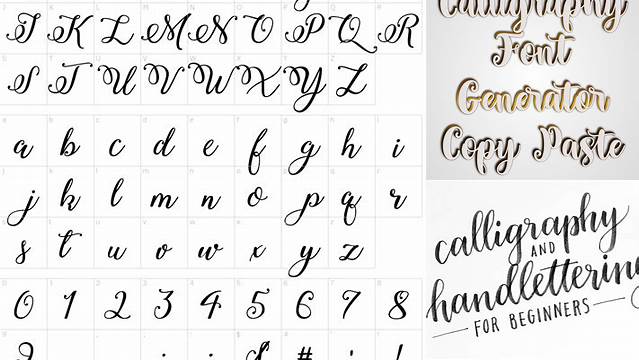
Hey guys! Are you ready to dive into the beautiful world of calligraphy? Whether you're a seasoned artist or just starting out, finding the perfect font can be a game-changer. That's where a calligraphy font generator comes in! And guess what? We're talking about free downloads and easy copy-paste options. Sounds awesome, right? This article is your go-to guide for all things calligraphy fonts. We'll explore the best generators, how to use them, and even some tips to make your designs stand out. So, grab your digital pen (or your regular one!), and let's get started!
H2: Understanding the Magic of Calligraphy Fonts
Alright, before we jump into the generators, let's talk about why calligraphy fonts are so darn special. Think about it – they add a touch of elegance, personality, and artistry that plain text just can't match. They're perfect for everything from invitations and greeting cards to website headers and social media posts. The beauty of a well-chosen calligraphy font is that it instantly elevates your design. It's like adding a splash of color to a black and white picture! Calligraphy fonts often mimic the strokes of a real pen, giving your text a handmade, authentic feel. This can create a sense of warmth and personal connection, which is particularly effective in marketing materials or personal projects. Plus, they offer a wide range of styles, from the classic and formal to the modern and whimsical. Choosing the right font is crucial. A font that aligns with your message can communicate subtle cues about your brand or your personal style. This is where the calligraphy font generator copy paste free download becomes invaluable, helping you explore different options and find the perfect fit for your project without spending a dime. The versatility of these fonts is truly amazing. You can find styles that work for weddings, birthdays, and even business presentations. They are like the secret weapon in a designer's arsenal, instantly making any design project more visually appealing. The artistic nature of calligraphy fonts can grab the attention of the reader and make them curious about the message. The variations are truly endless. You'll find fonts that are delicate and flowing, bold and dramatic, and everything in between. The availability of free downloads also enables you to try a variety of styles before committing to a particular one. You can play with different fonts, experiment with various sizes and styles and see what looks and feels best. The ability to copy and paste these fonts makes them even easier to integrate into your design workflow. Overall, understanding calligraphy fonts and leveraging tools like a calligraphy font generator copy paste free download is a smart way to add beauty and professionalism to your designs. They're a fun way to explore your creativity.
H3: The Importance of Calligraphy in Design
Calligraphy isn't just about pretty letters; it's a powerful design element that can significantly impact how your message is received. Think of it as the visual equivalent of a warm handshake or a friendly smile. When used correctly, calligraphy fonts create an emotional connection with your audience. They convey a sense of care, attention to detail, and artistry that plain text can't. In a world saturated with digital content, the human touch that calligraphy provides can make your designs stand out. It's an easy way to add personality to your project. Whether you are designing a website, a social media post, or a printed invitation, the choice of calligraphy font is critical. It sets the tone for your message, and determines how your audience will react to it. The design world is full of examples showing the impact of calligraphy on visual communication. In branding, calligraphy fonts can help establish a unique brand identity. In personal projects, they can make your designs more memorable and meaningful. Calligraphy is much more than just writing, it is an art form that can express complex emotions and ideas. If you're creating something for someone you love, a heartfelt message using a calligraphy font can make all the difference. The subtle nuances in each stroke, the way the letters flow together, all contribute to a feeling of warmth and authenticity. In business, it can enhance your brand’s personality and differentiate your offering from competitors. When it comes to design, the use of calligraphy can add a touch of sophistication and elegance. Choosing the right calligraphy font, like the calligraphy font generator copy paste free download makes it possible to explore different options and find the perfect style that matches your needs. The key is to select fonts that match your message. With all the options available in a calligraphy font generator, there is something for everyone. With a calligraphy font generator you have all the tools you need, especially the free download, to create beautiful and meaningful designs.
H2: Free Calligraphy Font Generators: Your Design Toolkit
Okay, let's get down to the good stuff – the free calligraphy font generators! There are tons of options out there, and the best part is many of them are super user-friendly and ready to go. These generators essentially convert your text into beautiful calligraphy styles. You simply type in your words, choose a font, and voila – you've got a stunning design ready for use. Some of the top generators include online tools that offer a wide selection of fonts, customization options, and the easy copy-paste feature. You can find free versions, which means no hidden fees and immediate access to a variety of fonts. Using these generators saves you valuable time and effort, and lets you focus on the creative side of design. The best ones allow you to customize your text's size, color, and spacing, so you have full control over the final look. The beauty of a free calligraphy font generator is that it levels the playing field. Anyone, regardless of their design skills or experience, can create beautiful calligraphy text with ease. Moreover, many of these generators offer a copy-paste feature, making it simple to integrate your text into various applications. The process is usually straightforward: type your text, choose your style, and then copy and paste your finished calligraphy text. This is incredibly convenient for creating social media graphics, website headers, or any other project where you want a touch of elegance. The calligraphy font generator copy paste free download is an invaluable resource. It helps you explore your creativity and find the fonts that match your vision without spending a fortune. With a few clicks, you can transform plain text into a work of art and make your designs look amazing. It allows you to experiment with different styles until you find the one that you like best. Experimentation is the key to any art form. With a calligraphy font generator you can try different looks. You can play around with various fonts, sizes, and colors until you find the perfect look for your design.
H3: Top Free Calligraphy Font Generators to Explore
Alright, let's dive into the nitty-gritty and check out some of the best free calligraphy font generators available. There are several fantastic tools out there that offer a wide array of fonts, customization options, and, of course, the coveted copy-paste function. Some of the popular choices include online platforms that are known for their simplicity, variety, and user-friendly interfaces. These generators let you type in your text, select from a diverse library of calligraphy fonts, and immediately see your text transformed. Many offer basic customization, such as adjusting font size, color, and spacing. The beauty of this is that you don't have to be a design expert to create elegant text. These are the perfect tools if you are just starting with calligraphy. They are easy to use. They provide you with a simple way to play with different styles, and add a touch of artistry to your designs. The free download feature is also a great benefit. It lets you download your generated calligraphy fonts. Many of these generators also offer a copy-paste feature, which makes it super easy to use your text in your projects. Just copy and paste the generated text into your designs, social media posts, or any other application. This is particularly useful for those who want to create engaging content without complex design software. One of the most appealing aspects of these generators is their cost-effectiveness. They are completely free, which means you don't need to pay for expensive design software or fonts. You can use them as much as you want, and experiment with different styles without any financial commitment. The calligraphy font generator copy paste free download is a convenient way to try out different fonts before committing to a particular one. You can play around with various styles, experiment with colors and sizes, and get a feel for what works best.
H2: How to Use a Calligraphy Font Generator: Step-by-Step Guide
Using a calligraphy font generator is a breeze, making it accessible even for beginners. The process is usually straightforward: you enter your text, choose your font, customize if you wish, and then copy and paste the result. First, you'll typically find an online generator that suits your needs. There are plenty of choices when it comes to the perfect calligraphy font generator copy paste free download option. Next, you simply type in the text you want to convert into calligraphy. Then comes the fun part - selecting a font. Generators usually have a dropdown menu or a gallery with a variety of styles, from elegant scripts to bold, modern designs. Browse through the options and pick the one that best suits your project. Some generators allow you to customize your text further, adjusting the size, color, spacing, and sometimes even the effects like shadows or outlines. This is a great way to fine-tune your design and make it unique. Once you're happy with how your text looks, the final step is to copy and paste it. Click on the copy button, and then paste it into your desired application, such as a graphic design software, a word processor, or a social media platform. The text will then magically appear in the selected calligraphy font. The beauty of this step-by-step process is that it makes design accessible. No matter your level of experience, you can use these tools to create amazing designs. It removes all the guesswork from the process. Using a calligraphy font generator copy paste free download is easy for all users. It takes only a few minutes to create stunning results. With a few clicks, you'll have beautiful calligraphy text that you can use for your projects.
H3: Mastering the Copy-Paste Feature: Tips and Tricks
Alright, let's talk about the copy-paste feature – the heart and soul of your calligraphy font generator experience! Mastering this simple technique can seriously enhance your design workflow. The ability to quickly and easily move your generated calligraphy text into your preferred design software is what makes these tools so convenient. The first and most important thing is to make sure you're using the correct copy-paste method. Most generators have a button that says